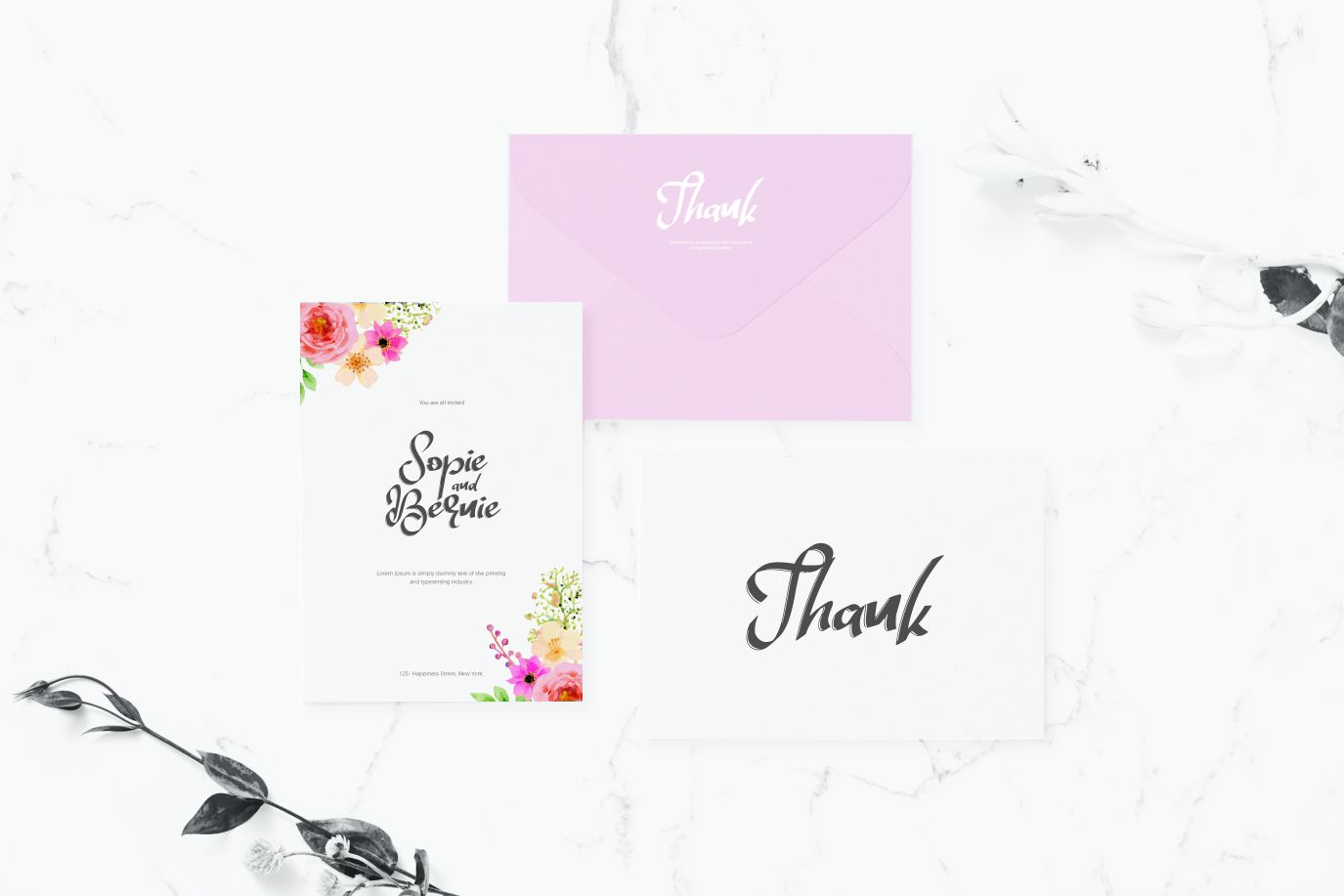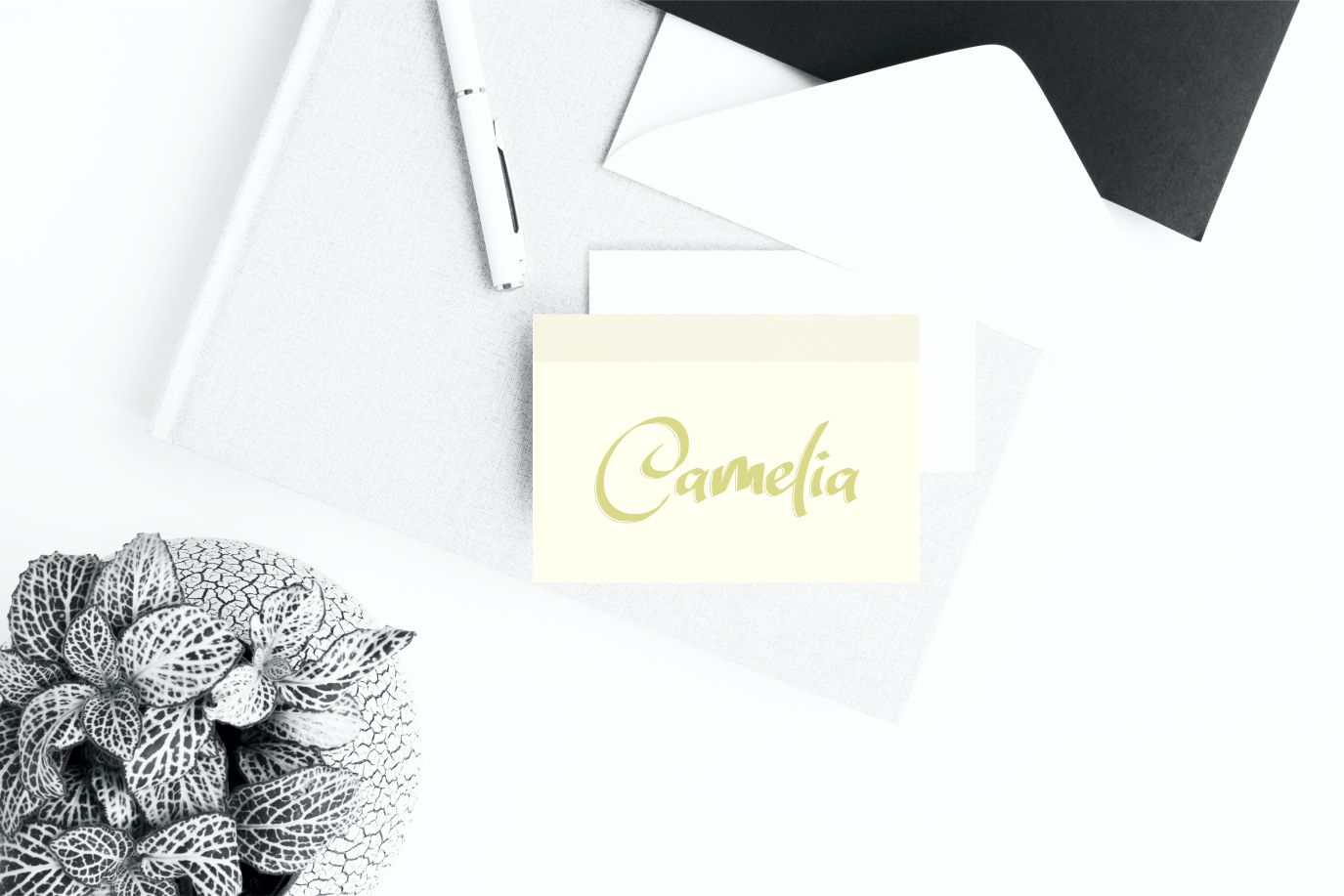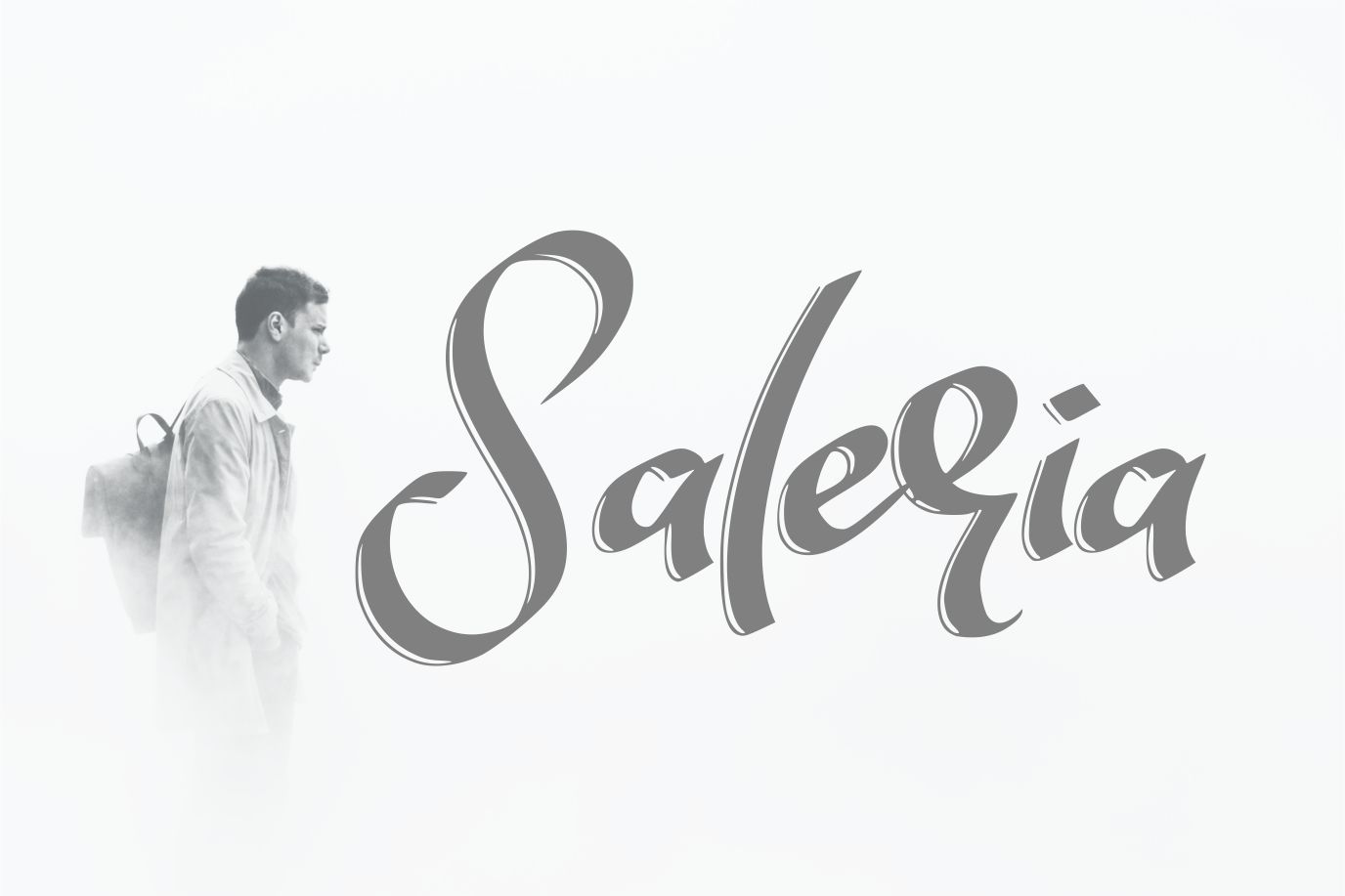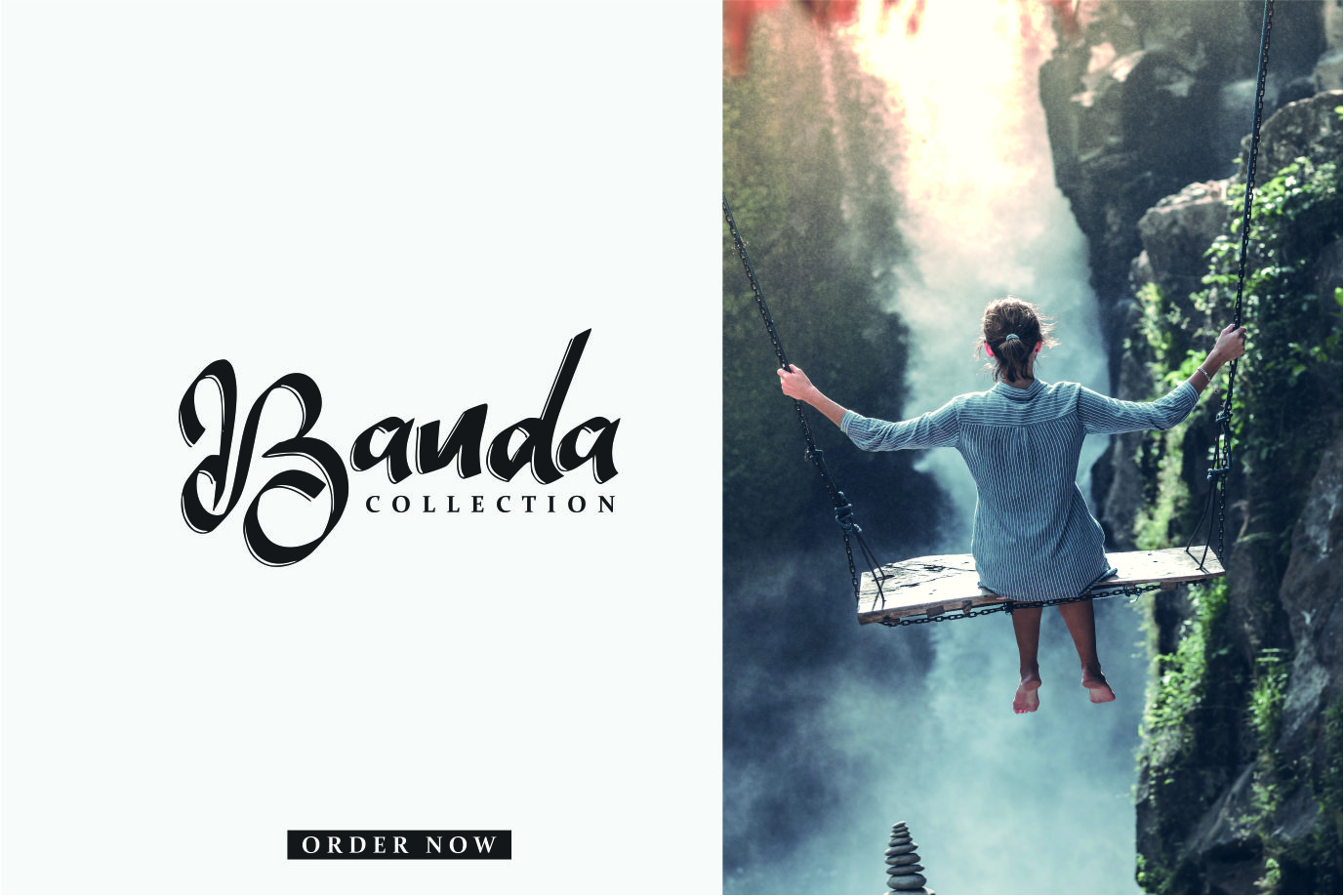
Zildjan | Script Brush Font
**Zildjan | Script Brush Font** with a calligraphy style, So beautiful on invitation like greeting cards, branding materials, business cards, quotes, posters, and more!
* Tons of glyphs
* Alternates and Ligatures
* Punctional
* Fonts include **Multilingual Support**